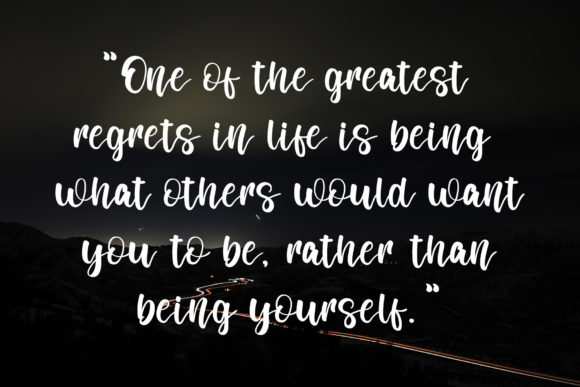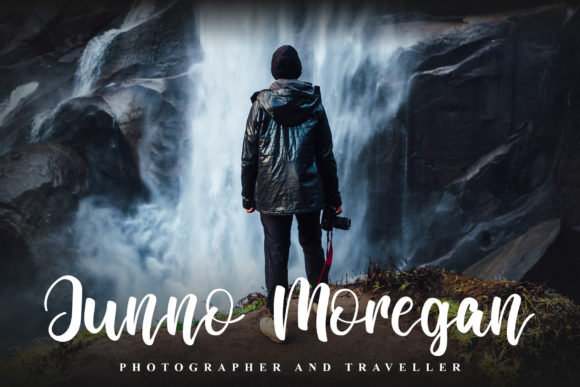
Black Smile Font
db-ku.com - Script & Handwritten -- Black Smile is a beautiful and whimsical script font. It is defined by smooth curves and is perfect for fashion branding or editorial designs. Add it confidently to your projects, and you will love the results.